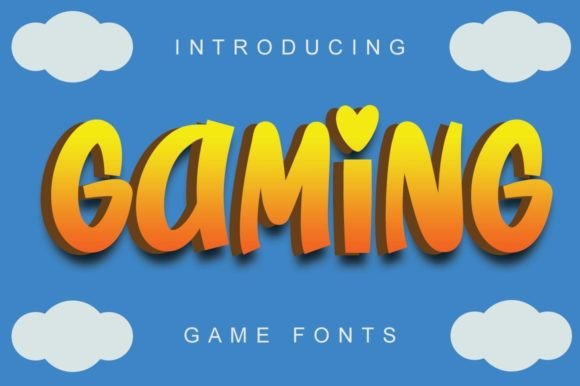
Journey into the realm of imagination and creativity with Gaming Font, a display font family that embodies the essence of comic and cartoonish aesthetics. Its captivating, bold style exudes boyish charm and playful attitude, inviting you to explore a world of boundless possibilities.
Immerse yourself in the realm of design and let your imagination run wild. Gaming Font's unique characteristics make it a versatile asset for a diverse range of projects. Whether you're crafting imaginary children's books, developing online games, or creating eye-catching stationery and school supplies, this font will add a touch of magic and whimsy to your creations.
Envision your designs adorned with the vibrancy of Gaming Font. Its playful charm will elevate your posters, movie titles, and YouTube covers, adding a captivating element to your visual presentations. Let your social media pages, cartoon titles, and magazine covers stand out with the distinct allure of this font, leaving a lasting impression on your audience.
Unlock your creativity and explore the limitless possibilities of Gaming Font. Its versatility extends to t-shirt designs, brand identities, labels, and business cards, providing a touch of personality and uniqueness to your professional endeavors. Embrace the playful spirit of this font and let it infuse your designs with a sense of joy and lightheartedness.
Step into the world of casual design and let Gaming Font transform your projects into captivating works of art. Enhance the visual appeal of your packaging, posters, flyers, and social media posts with its charming presence. Create heartfelt invitations, special event cards, and more, knowing that Gaming Font will add a touch of magic to every occasion. Its versatility knows no bounds, making it the perfect companion for expressing your creativity across a wide spectrum of projects.